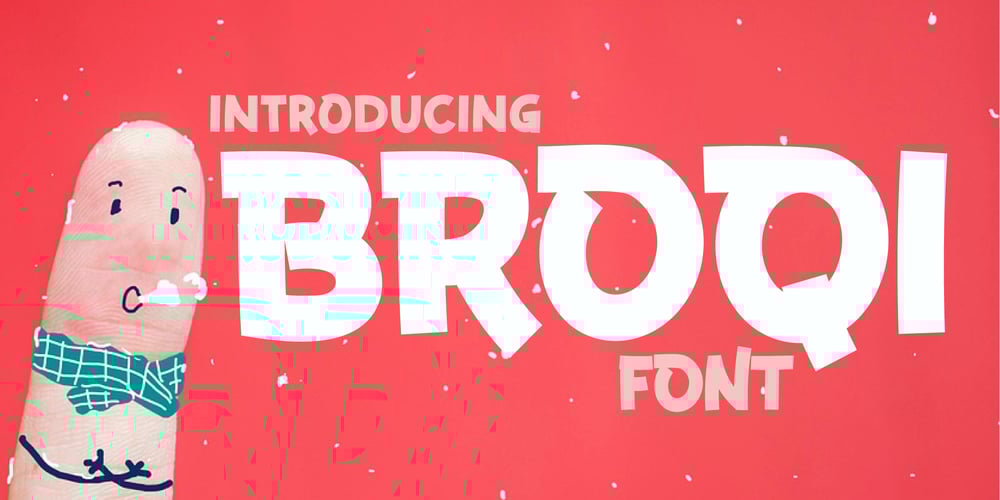
Broqi
Broqi font
Broqi Font Family was designed by Rozikan and published by Twinletter. Broqi contains 1 styles and family package options. Introducing “BROQI” – sanserif / display font with a new look, which is stylish and flexible. Its bold, solid, clear, and strong characteristics make this font look beautiful with the right portions in your various design projectsThis font is made with passionate pleasure and passionate passion applied to this font design, so this font is suitable for offline or online games, PC or smartphone games, adventure posters, children’s movie titles, food titles and logos, magazines, youtube cover images, social media page covers, banner headlines, children’s book titles, film titles, and more.============================================================================================================What’s Included : Standard glyphs Ligature Works on PC & Mac Simple installations Accessible in Adobe Illustrator, Adobe Photoshop, Adobe InDesign, even work on Microsoft Word. PUA Encoded Characters – Fully accessible without additional design software. Fonts include multilingual support for; Afrikaans, Albanian, Croatian, Czech, Danish, Dutch, English, Estonian, Finnish, French, German, Hungarian, Italian, Norwegian, Polish, Portuguese, Slovak, Slovenian, Spanish, Swedish